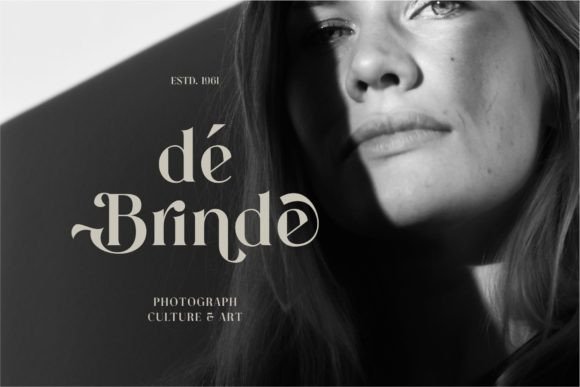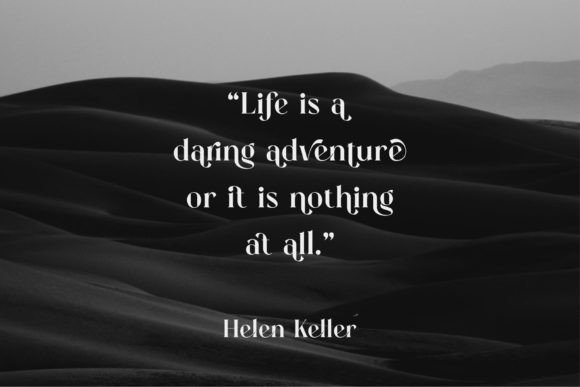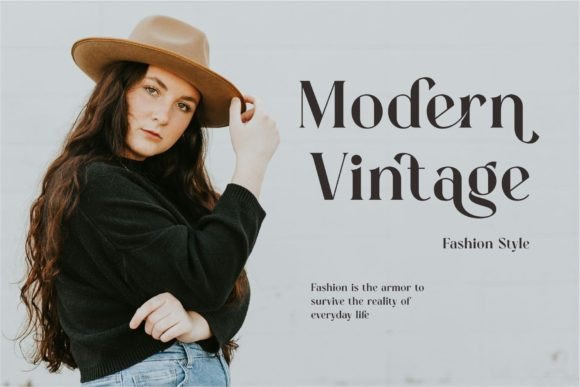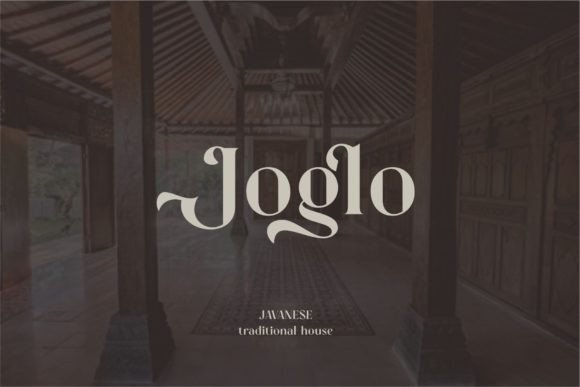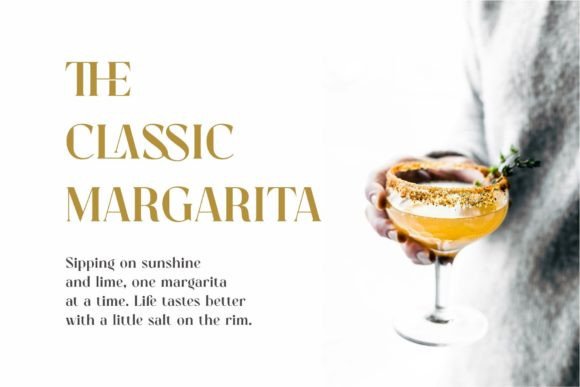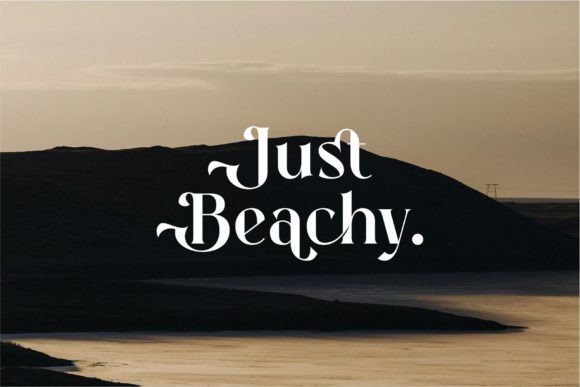
Introducing Dilgia Font: Elevate Your Designs with Elegance
Are you on the hunt for a sophisticated and versatile font to elevate your design projects? Look no further than the Dilgia Font, a stunning elegant serif typeface inspired by the famous minimalist logo. This beautiful font is perfect for a wide range of design applications, from crafting templates and brochures to creating captivating videos, advertising branding, logos, invitations, and more.
What Makes Dilgia Font Special?
The Dilgia Font is designed with elegance and versatility in mind. Its classic serif structure, reminiscent of traditional typography, is infused with a modern minimalist approach, making it perfect for designers and crafters seeking a refined look. The font’s inspiration from a famous minimalist logo gives it a unique edge, allowing it to stand out in any design project.
Key Features of Dilgia Font
- Elegant Serif Typeface: The font’s elegant serif design adds a touch of sophistication to any project. Whether you’re working on a luxury brand’s logo, a high-end brochure, or an elegant invitation, Dilgia Font provides the perfect typographic solution.
- Versatility: One of the standout features of Dilgia Font is its versatility. It’s suitable for a myriad of design applications, including but not limited to:
- Designing templates for websites or social media
- Crafting professional brochures and flyers
- Creating engaging video titles and intros
- Developing advertising and branding materials
- Designing logos that require a touch of elegance
- Crafting beautiful invitations for events
- Layout design for magazines or books
- Elegant crafting projects
- Beauty and cosmetic design
Why Choose Dilgia Font?
In a world where design trends are constantly evolving, having a font that can keep up with your creative demands is invaluable. Dilgia Font offers a timeless elegance that can enhance any design project, making it a valuable asset for designers and crafters. Here are a few reasons why Dilgia Font should be your go-to choice:
- Unique Aesthetic: The font’s unique blend of classic and minimalist design elements gives it a distinctive look that can set your designs apart.
- Highly Versatile: Whether you’re working on digital or print projects, Dilgia Font adapts beautifully, ensuring your designs always look their best.
How to Use Dilgia Font
- Experiment with different sizes and colors to match your brand’s aesthetic
- Take advantage of the glyphs and ligatures to add unique touches to your designs
- Pair it with other fonts for a layered look or use it as a standalone font for a clean, cohesive appearance
Dilgia Font is more than just a typeface; it’s a design tool that can elevate your projects to new heights of elegance and sophistication. Whether you’re a professional designer or a passionate crafter, Dilgia Font offers the versatility, ease of use, and unique aesthetic you need to bring your creative visions to life. With its elegant serif design, PUA encoding, and wide range of applications, Dilgia Font is poised to become an indispensable part of your design toolkit.